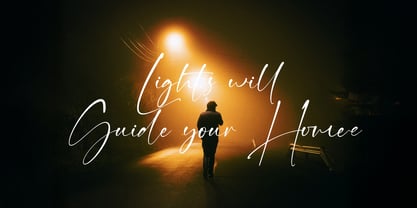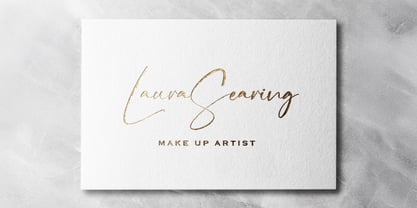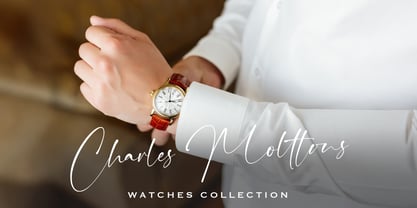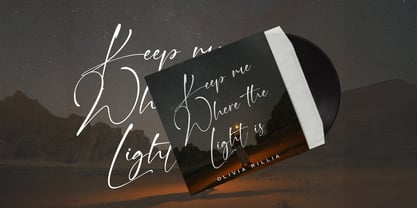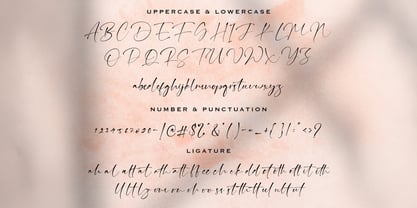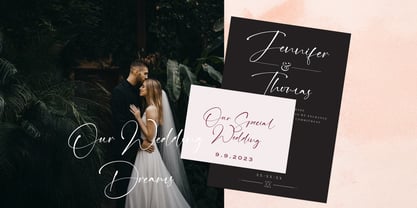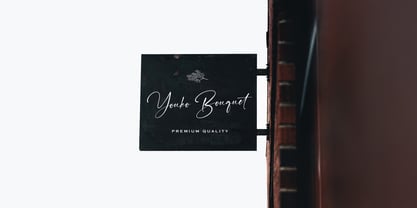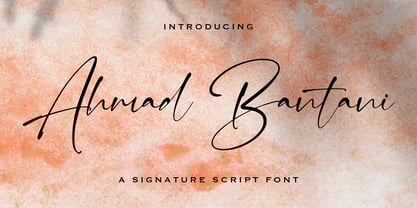
Ahmad Bantani
by Stringlabs Creative Studio
The Ahmad Bantani Font Family was designed by Virgiawan Listanto and published by Stringlabs Creative Studio. Ahmad Bantani contains 1 styles.
Ahmad Bantani is an elegant signature font crafted with smooth, flowing strokes that capture the beauty of authentic handwriting. Its stylish curves and refined details make it ideal for logos, branding, wedding invitations, fashion designs, photography watermarks, and social media posts. Combining modern sophistication with a personal touch, Ahmad Bantani adds class, exclusivity, and timeless elegance to every project, ensuring your designs stand out beautifully.
Designers: Virgiawan Listanto
Publisher: Stringlabs Creative Studio
Foundry: Stringlabs Creative Studio
Design Owner: Stringlabs Creative Studio